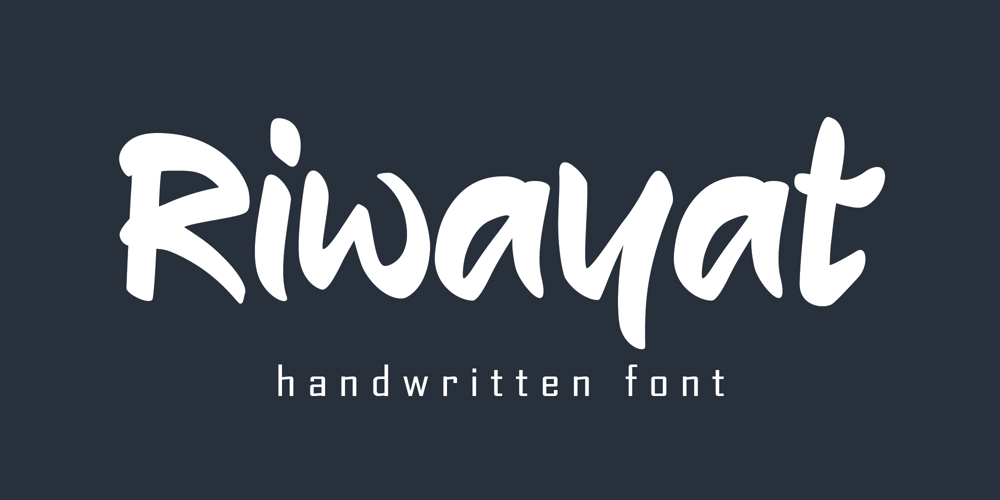
Riwayat Font Family was designed by Anass Qara and published by Qaratype. Riwayat contains 1 styles and family package options. Riwaya is a cool and fashionable handwritten font. It is defined by smooth curves and is perfect for fashion branding or editorial designs. Add it confidently to your projects, and you will love the results.